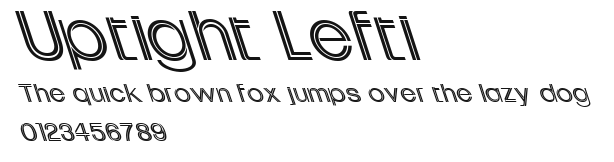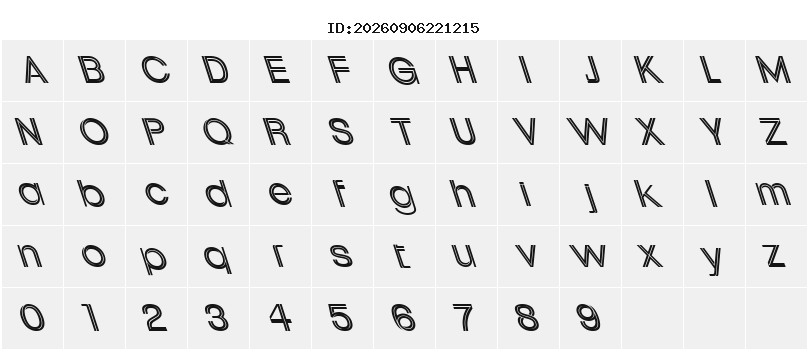
• Font Name: Uptight Lefti
• Full Font Name: Uptight Lefti
• PostScript Name: UptightLefti
• Character Count: 95
About Uptight Lefti.ttf
Uptight Lefti.ttf is a modern, elegant sans-serif font designed for ultimate readability and visual harmony. Perfect for branding, headlines, web design, and print materials.